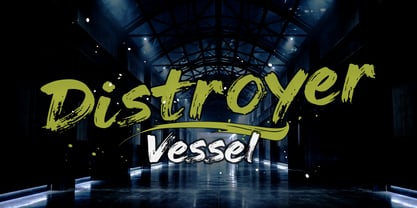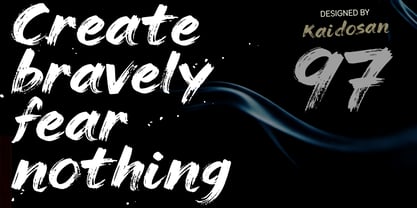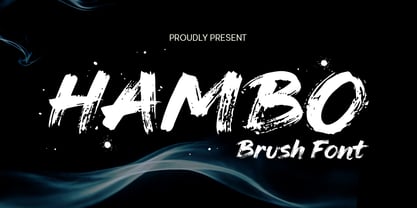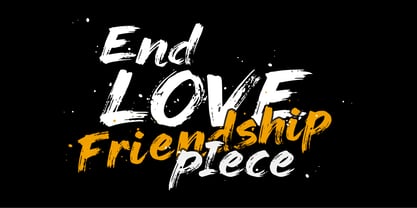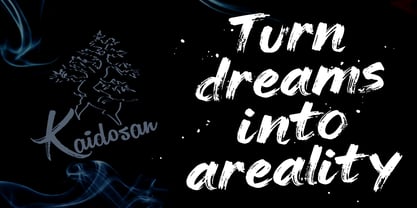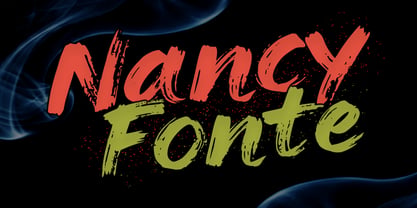
Hambo
by Kaidosan
The Hambo Font Family was designed by Muhammad Ansari and published by Kaidosan. Hambo contains 4 styles and family package options. More about this family
HAMBO – The Ultimate Expressive Brush Font Family Inject raw energy and bold character into your creative projects with HAMBO. Crafted with authentic, high-detail brush strokes, HAMBO is more than just a font—it’s a visual powerhouse. Its assertive, organic texture is designed to deliver a high-impact, handmade feel that is both modern and timeless. Why Choose HAMBO? Unlike standard single-weight brush fonts, HAMBO offers a complete font family. With four distinct styles engineered to work in perfect harmony, you can create complex visual hierarchies and professional layouts without needing to pair it with external typefaces. The Versatile Style Lineup: HAMBO Regular: The core of the collection. Featuring sharp, solid brush textures, it is the go-to choice for dominant headlines and hero sections. HAMBO Shadow: Adds instant depth and a retro-modern vibe. Perfect for making your typography "pop" against busy backgrounds. HAMBO Outline: A lighter, more architectural take on the brush aesthetic. Ideal for minimalist designs that still require an edgy, hand-drawn touch. HAMBO Distort: For when you need maximum grit. This style features heavy grunge textures, making it perfect for streetwear, rock music aesthetics, and high-action visuals. Perfect for a Wide Range of Applications: Branding & Logos: Create a unique, personal identity for standout brands. Apparel & Merchandise: Elevate T-shirts, hoodies, and lifestyle gear with ease. Social Media Graphics: Capture attention instantly with bold, expressive content. Packaging Design: Ideal for artisanal foods, energy drinks, or grooming products. Posters & Events: The perfect choice for concert flyers, sports tournaments, and art exhibitions. What’s Included: 4 Professional Styles: Regular, Shadow, Outline, and Distort. Multi-language Support: Ready for global design needs. Complete Character Set: Includes full punctuation and numerals. HAMBO is the ultimate tool for designers who demand flexibility without compromising on raw aesthetic power. Get HAMBO today and make your designs impossible to ignore!
Designers: Muhammad Ansari
Foundry: Kaidosan